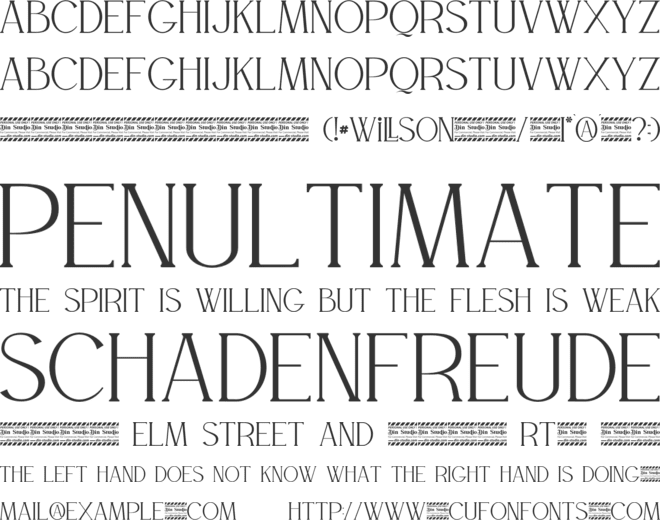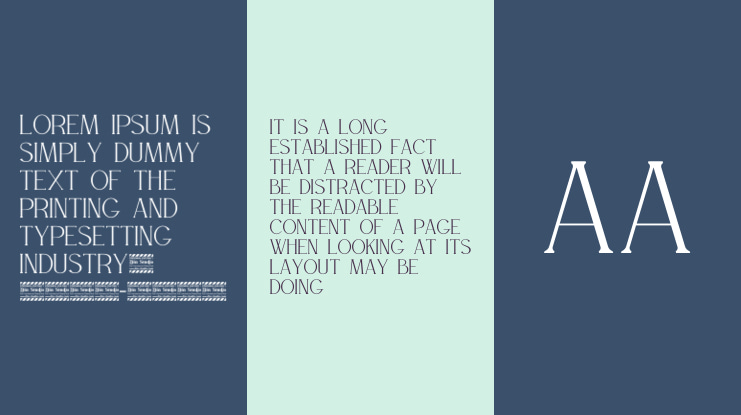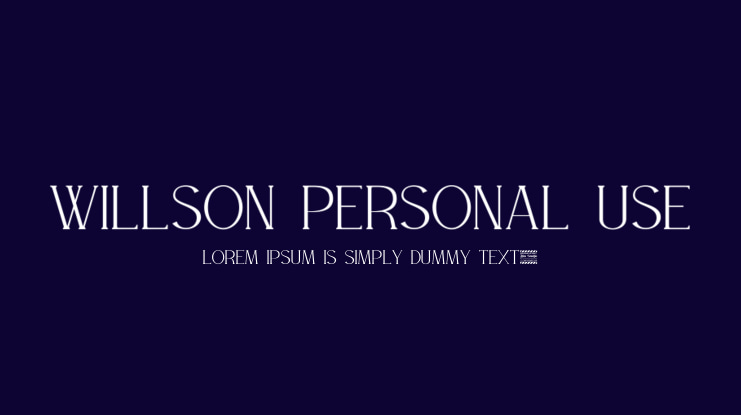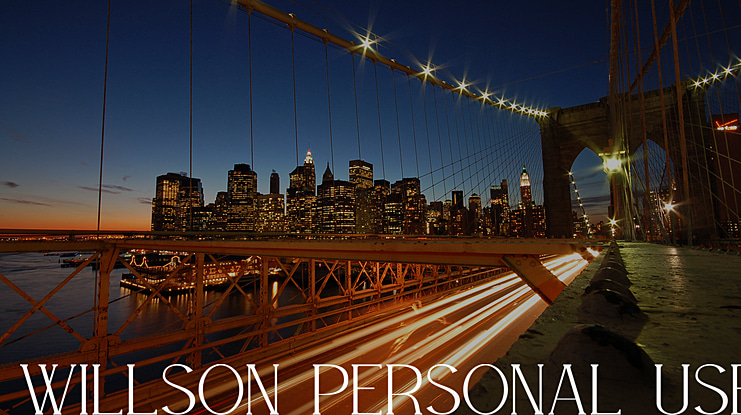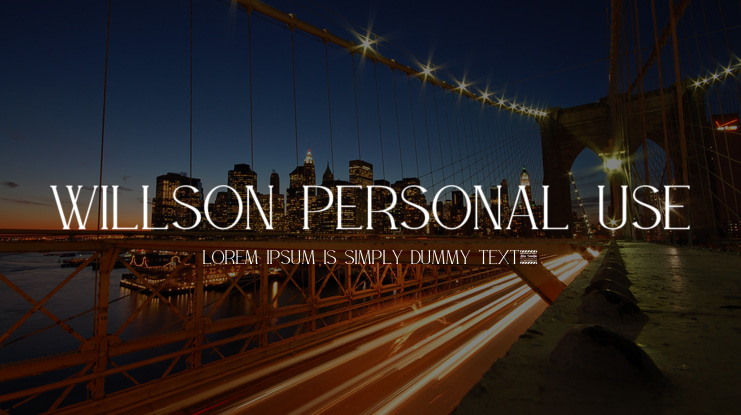
Say hello to Willson – Clean Serif Font, Willson designed with a modern and clean style. It’s suitable
for branding, logo, printing and many other designs.